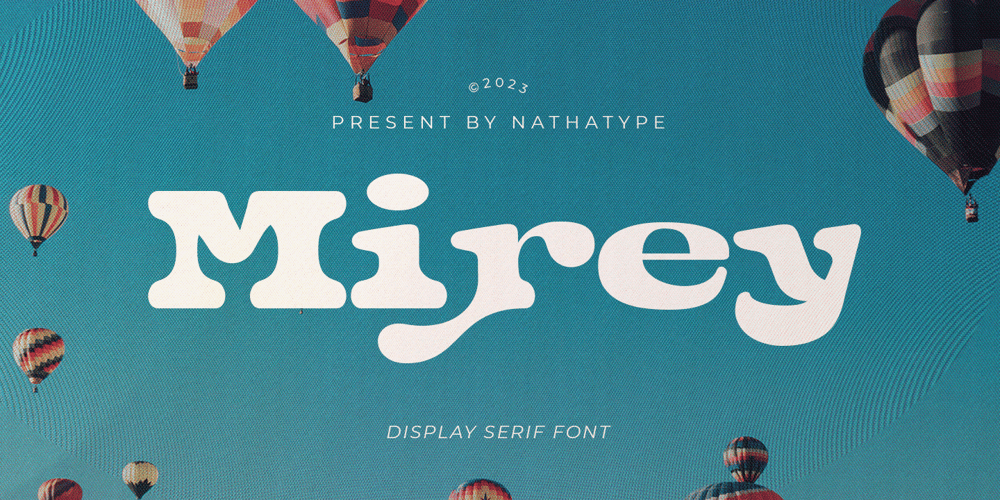
Mirey
Mirey font
Mirey Font Family was designed by Donis Miftahudin and published by Nathatype. Mirey contains 1 styles and family package options. If you want your designs to be prominent, you will need a unique, prominent, yet professional, legible font. However, it may be hard and take some time to find the right one due to a lot of options available causing difficulty to figure out the suitable one you desire. With Mirey, you can easily create a unique identity for your design.Mirey is a display serif font in thick weights with small lines on the letters’ edges to look formal and classic. In addition, it expresses unique, artistic touches from its combinations with display font characters. This display font has thick lines and strong contrasts, so that it is perfect to attract attention and to show strong impressions. Due to its high legibility level, this font is applicable for a variety of text sizes. In addition, you can enjoy the available features here. Features: Multilingual Supports PUA Encoded Numerals and Punctuations Mirey fits best for various design projects, such as brandings, posters, banners, headings, magazine covers, quotes, invitations, name cards, printed products, merchandise, social media, etc. Find out more ways to use this font by taking a look at the font preview.Thanks for purchasing our fonts. Hopefully, you have a great time using our font. Feel free to contact us anytime for further information or when you have trouble with the font. Thanks a lot and happy designing.